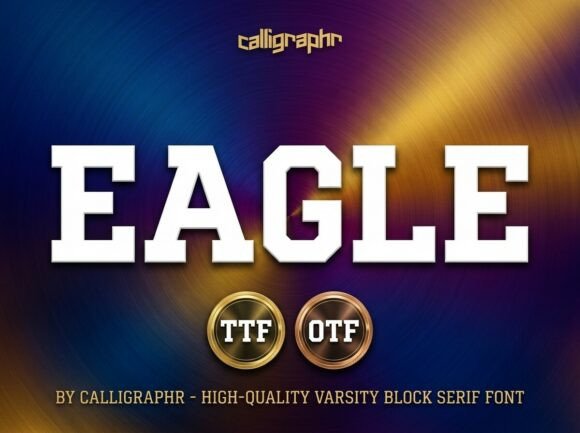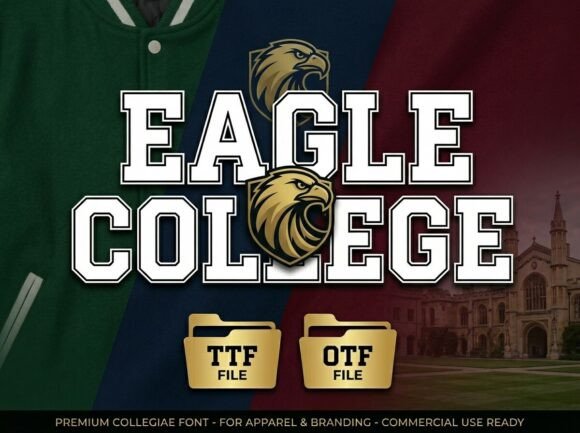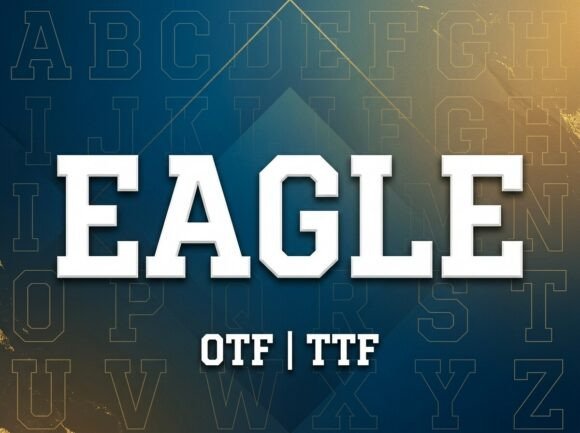
Unleash Your Brand’s Inner Champion with Eagle Font
In the world of typography, few fonts capture the essence of athleticism and authority as effortlessly as Eagle. This powerhouse display typeface is designed to lead the pack, embodying the spirit of champions and heritage brands alike. With its unique blend of heavy, rock-solid slab-serif letterforms and rhythmic “varsity” bevels, Eagle is the perfect choice for designers and crafters looking to make a bold statement.
The Anatomy of Eagle Font
Eagle’s design is characterized by its clean, authoritative structure and massive presence. The font features heavy, rock-solid slab-serif letterforms that exude confidence and strength. The rhythmic “varsity” bevels add a touch of sophistication and elegance, setting Eagle apart from other display typefaces. This distinctive combination of features makes Eagle the premier choice for independent sports team branding, university athletic apparel, high-performance fitness logos, and high-impact “champion-and-heritage” social media headers.
Perfect for Sports and Fitness Brands
Eagle font is specifically designed to meet the needs of sports and fitness brands. Its athletic-and-commanding soul makes it an ideal choice for brands that want to convey a sense of strength, resilience, and determination. Whether you’re designing a logo for a professional sports team, a fitness center, or a sports apparel brand, Eagle font is sure to make a lasting impression.
Key Features of Eagle Font
- Heavy, rock-solid slab-serif letterforms: Eagle’s letterforms are designed to be strong and sturdy, conveying a sense of authority and confidence.
- Rhythmic “varsity” bevels: The rhythmic bevels add a touch of sophistication and elegance to the font, making it perfect for high-end sports and fitness brands.
- Clean, authoritative structure: Eagle’s clean and authoritative structure makes it easy to read and understand, even at large sizes.
- Massive presence: Eagle font is designed to make a big impact, making it perfect for headlines, titles, and other display text.
Why Choose Eagle Font?
So why choose Eagle font for your next design project? Here are just a few reasons:
- Uniqueness: Eagle font is a unique and distinctive typeface that will help your brand stand out from the competition.
- Authority: Eagle’s clean, authoritative structure and heavy, rock-solid letterforms convey a sense of confidence and strength.
- Versatility: Eagle font can be used for a wide range of applications, from sports team branding to high-performance fitness logos.
- Classic collegiate energy: Eagle font has a classic collegiate energy that will appeal to fans of sports and fitness.
Tips for Using Eagle Font
Here are a few tips for using Eagle font in your design projects:
- Use it boldly: Eagle font is designed to make a big impact, so don’t be afraid to use it boldly and at large sizes.
- Pair it with contrasting fonts: Eagle font pairs well with contrasting fonts, such as sans-serif fonts or script fonts.
- Experiment with colors: Eagle font looks great in a wide range of colors, from bold and bright to muted and subtle.
In conclusion, Eagle font is a powerful and versatile typeface that is perfect for designers and crafters looking to make a bold statement. With its unique blend of heavy, rock-solid slab-serif letterforms and rhythmic “varsity” bevels, Eagle is the premier choice for independent sports team branding, university athletic apparel, high-performance fitness logos, and high-impact “champion-and-heritage” social media headers. So why wait? Unleash your brand’s inner champion with Eagle font today!